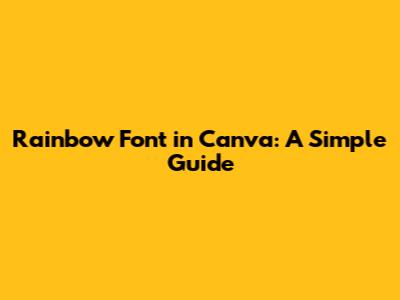
- Choose the Right Font: Select a font that’s bold and thick to make the rainbow effect more visible and impactful. Fonts like Impact, Bebas Neue, or Montserrat ExtraBold work really well.
- Use a Consistent Color Palette: Stick to a consistent color palette for your rainbow. Using the classic rainbow colors (red, orange, yellow, green, blue, purple) will create a recognizable and visually appealing effect.
- Pay Attention to Alignment: Make sure each layer of text is perfectly aligned before you start coloring and positioning. This will ensure that the rainbow effect is clean and precise.
- Experiment with Positioning: Play around with the positioning of each layer to find the sweet spot where all the colors are visible and distinct. Subtle adjustments can make a big difference.
- Add Finishing Touches: Don’t be afraid to add finishing touches like shadows, outlines, or graphic elements to enhance the rainbow effect and make your text stand out.
- Test Different Backgrounds: Try different backgrounds to see what works best for your rainbow font. A dark background can make the colors pop, while a light background can create a softer effect.
Hey guys! Ever wanted to make your text pop with a cool rainbow effect in Canva? Well, you’re in the right place! Creating rainbow fonts in Canva can add a vibrant and eye-catching element to your designs, making them stand out whether you’re working on social media graphics, presentations, or marketing materials. It’s a fantastic way to grab attention and inject some fun into your projects. In this guide, I’ll walk you through the steps to achieve this awesome effect, even though Canva doesn't have a direct one-click rainbow font option. Let's dive in and unleash your creativity!
Understanding Canva's Capabilities
Before we get started, it's important to understand what Canva can and cannot do right out of the box. Canva is an incredibly versatile design tool, but it doesn’t have a built-in feature that allows you to apply a rainbow gradient to text with a single click. However, don't let that discourage you! We can still achieve the rainbow effect using a few creative workarounds. The key is to leverage Canva's existing features like text elements, graphic elements, and background tools to mimic the look of a rainbow gradient. We'll be using a combination of layering, coloring, and positioning to create the illusion of a rainbow font. This might sound a bit technical, but trust me, it’s super easy once you get the hang of it. Plus, this method gives you more control over the final look, allowing you to customize the colors, spacing, and overall style of your rainbow text. So, while it might take a few extra steps compared to a direct rainbow font feature, the results are totally worth it. Think of it as adding a personal touch to your designs!
Step-by-Step Guide to Creating Rainbow Font in Canva
Alright, let's get down to the nitty-gritty. Here’s a step-by-step guide on how to create a rainbow font in Canva. Follow along, and you’ll be rocking rainbow text in no time!
Step 1: Set Up Your Canva Project
First things first, you need to set up your Canva project. Open Canva and create a new design. Choose the dimensions that suit your project needs. Whether it’s an Instagram post, a presentation slide, or a poster, make sure you have the right size. Once you're in the editor, you'll want to add a text box. Click on the “Text” tab in the left-hand panel and select “Add a heading.” Type in the word or phrase you want to transform into a rainbow font. Choose a font that’s bold and thick; this will make the rainbow effect more visible and impactful. Fonts like Impact, Bebas Neue, or Montserrat ExtraBold work really well. Adjust the size of the text so it's large enough to work with comfortably. The bigger the text, the easier it will be to apply the rainbow effect. Now that you have your text ready, you can start thinking about the colors you want to use for your rainbow. A classic rainbow includes red, orange, yellow, green, blue, and purple, but feel free to get creative and use any colors you like!
Step 2: Duplicate and Layer Your Text
This step is where the magic begins! To create the rainbow effect, you'll need to duplicate your text multiple times. Each duplicate will represent a different color of the rainbow. Select your text box and use the duplicate button (it looks like two overlapping squares) or simply press Ctrl+D (Cmd+D on Mac) to create a copy. Repeat this process until you have as many copies as you have colors in your rainbow. I usually go for six copies to cover the classic rainbow colors. Now, stack all the duplicated text boxes directly on top of each other so they perfectly align. This might take a bit of adjusting, but it's crucial for the final effect. You want to make sure that each letter is exactly on top of its corresponding letter in the layers below. Zooming in can help with precise alignment. Once you have all your text boxes perfectly aligned, you're ready to start coloring each layer to create the rainbow effect. This is where your design will really start to come to life!
Step 3: Color Each Layer
Now comes the fun part: coloring each layer to create the rainbow effect. Select the top text layer and change its color to one of the rainbow colors (e.g., red). Then, select the next layer and change its color to the next color in the rainbow (e.g., orange). Continue this process for each layer, following the order of the rainbow colors. If you're using the classic rainbow, you'll go through red, orange, yellow, green, blue, and purple. Canva’s color picker allows you to choose from a wide range of colors, or you can enter specific hex codes if you have a particular shade in mind. To change the color of a text layer, select the text box and click on the color picker in the top toolbar. Choose your desired color from the palette or enter a hex code. Repeat this for each layer, making sure to follow the correct color sequence. As you color each layer, you'll start to see the rainbow effect taking shape. It’s like watching your design come to life, one color at a time! This step is all about precision and attention to detail, so take your time and make sure each layer is perfectly colored.
Step 4: Adjust the Positioning
With each layer colored, it’s time to adjust the positioning to reveal the rainbow effect. Select the top layer (the one with the first color of the rainbow) and use the arrow keys on your keyboard to nudge it slightly to the left or right. Just a tiny movement is enough to start revealing the color of the layer beneath it. Then, select the next layer and nudge it in the same direction, but slightly more than the first layer. Continue this process for each layer, increasing the amount you nudge each time. The goal is to create a staggered effect, where each color is slightly offset from the others, creating the illusion of a rainbow gradient. You can also experiment with nudging the layers up or down slightly to add another dimension to the effect. Play around with the positioning until you achieve the look you want. It might take a bit of trial and error, but the results are worth it. Remember, the key is to create a subtle offset between each layer so that all the colors are visible and distinct. This step is where your rainbow font really starts to pop!
Step 5: Add Finishing Touches
To really make your rainbow font shine, consider adding some finishing touches. You can add a background color or image to make the text stand out even more. A dark background can really make the rainbow colors pop, while a light background can create a softer, more subtle effect. Experiment with different backgrounds to see what works best for your design. You can also add shadows or outlines to the text to give it more depth and dimension. Canva’s effects panel offers a variety of options for adding shadows, outlines, and other visual enhancements. Try adding a subtle shadow to each layer of the text to create a 3D effect, or add a white outline to make the colors stand out against the background. Another idea is to add some graphic elements around the text to complement the rainbow effect. Stars, sparkles, or other colorful shapes can add a touch of whimsy and fun to your design. The possibilities are endless! Just remember to keep the overall design balanced and cohesive. The finishing touches are all about enhancing the rainbow font and making it the focal point of your design.